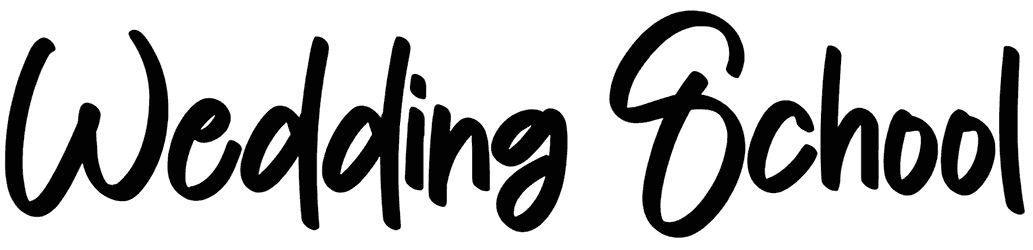
Wedding School Font
Whether you’re working with art or some design templates, Wedding School will make your project stand out. This handwritten font has a human character that can look great for creating a personal project that inspires imagination, creativity, and endless fun.
The informal atmosphere created by the presence of this school font makes it suitable for book covers, packaging, and logotypes. So if you are looking for a font that is easy to work with, Wedding School can blow your mind.